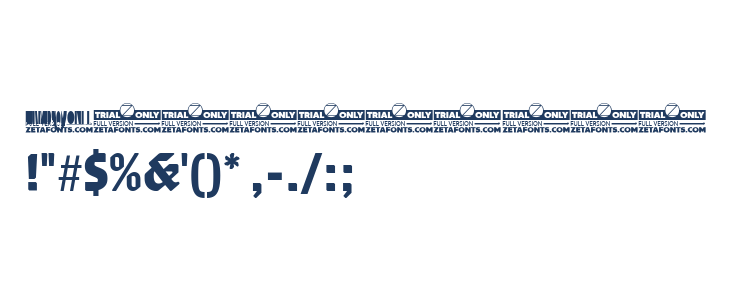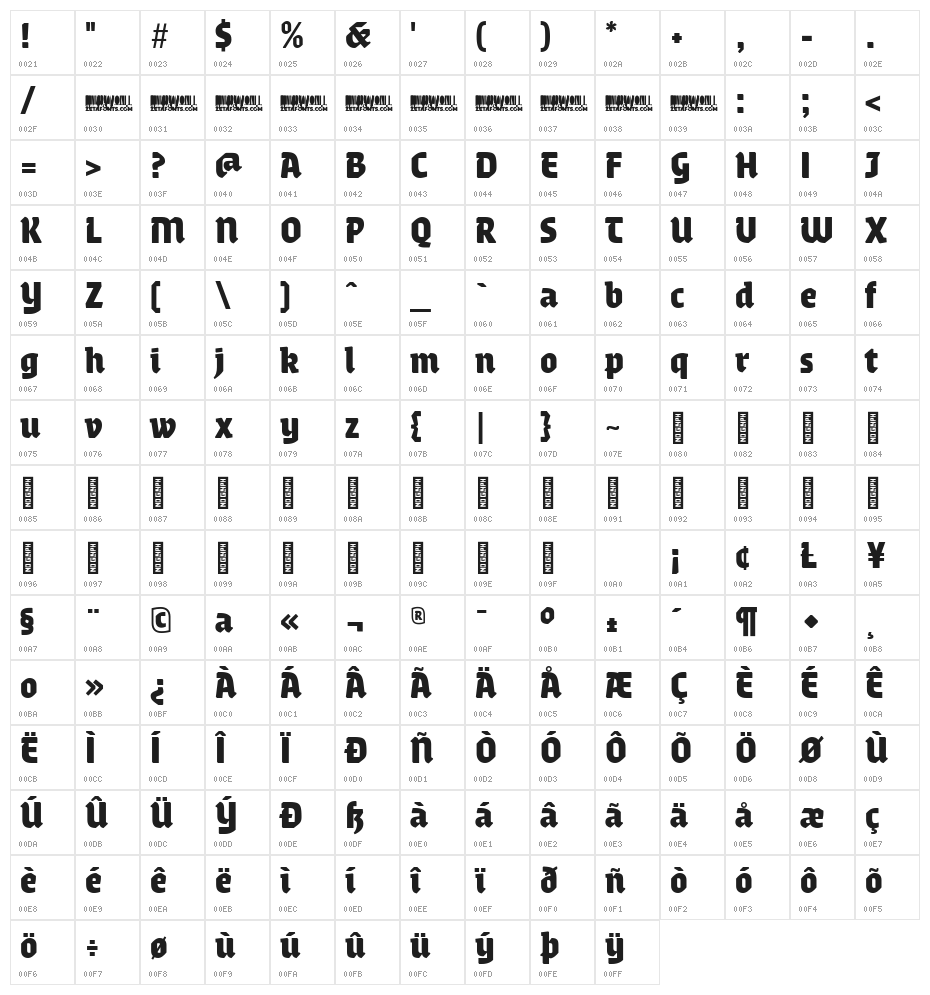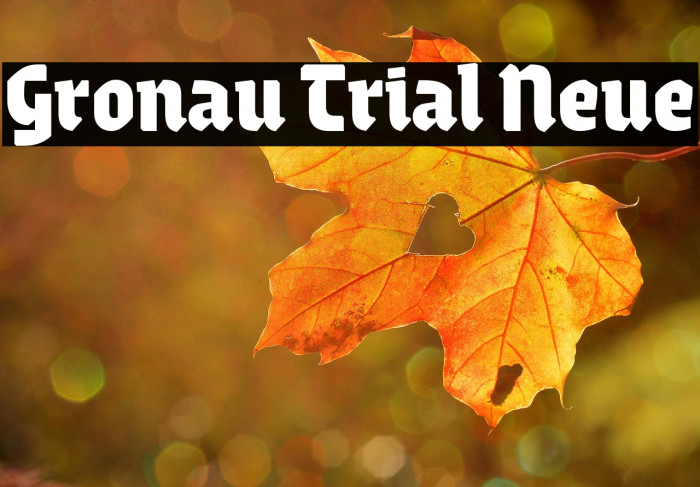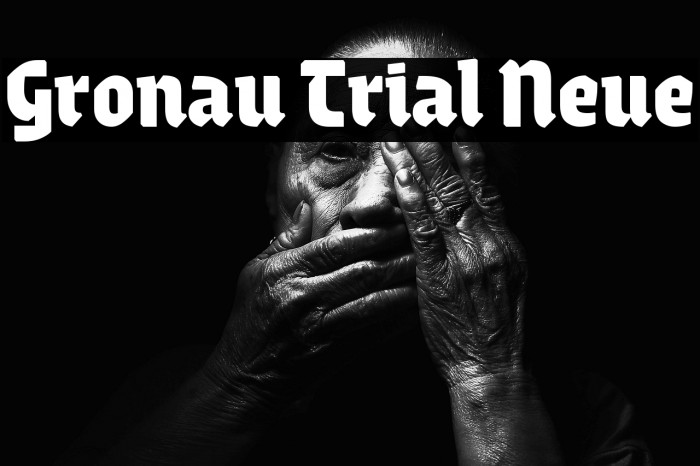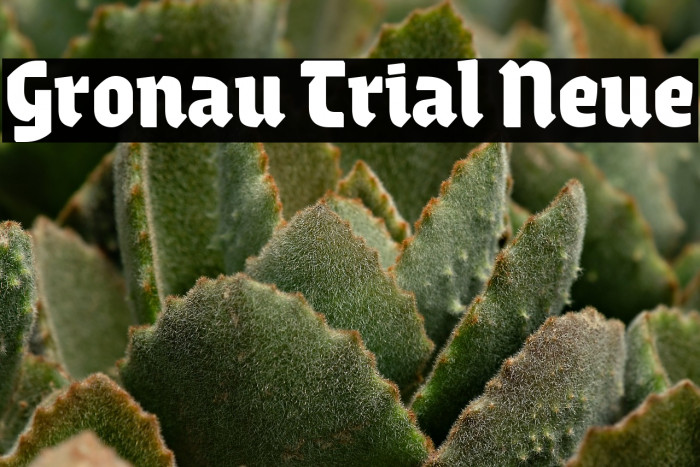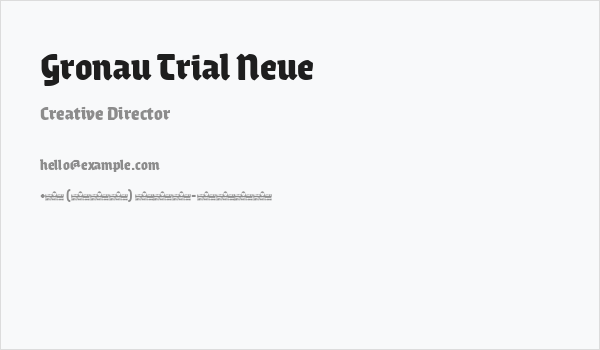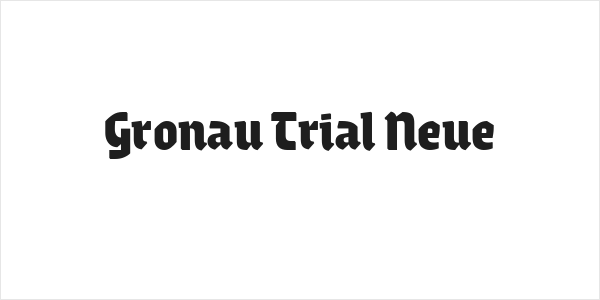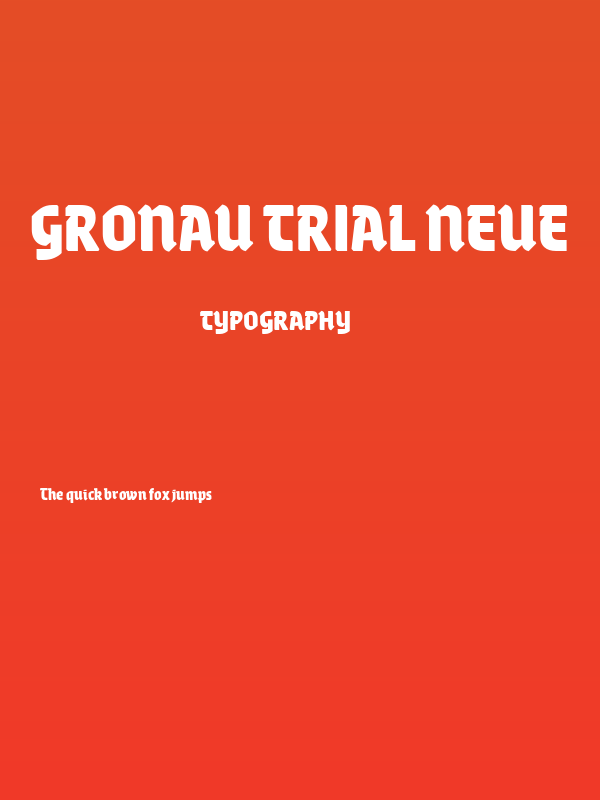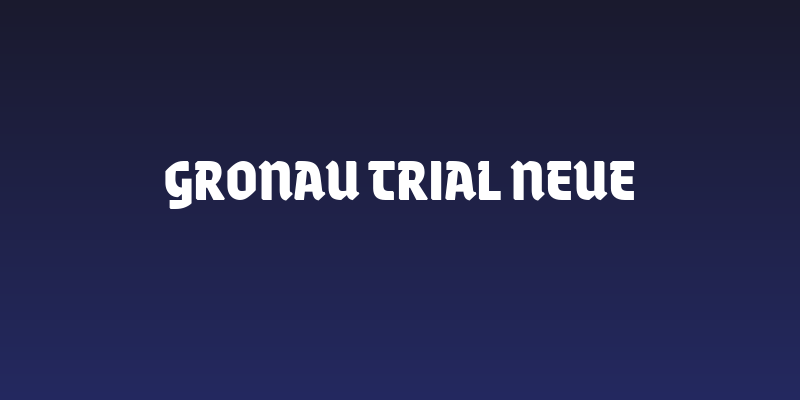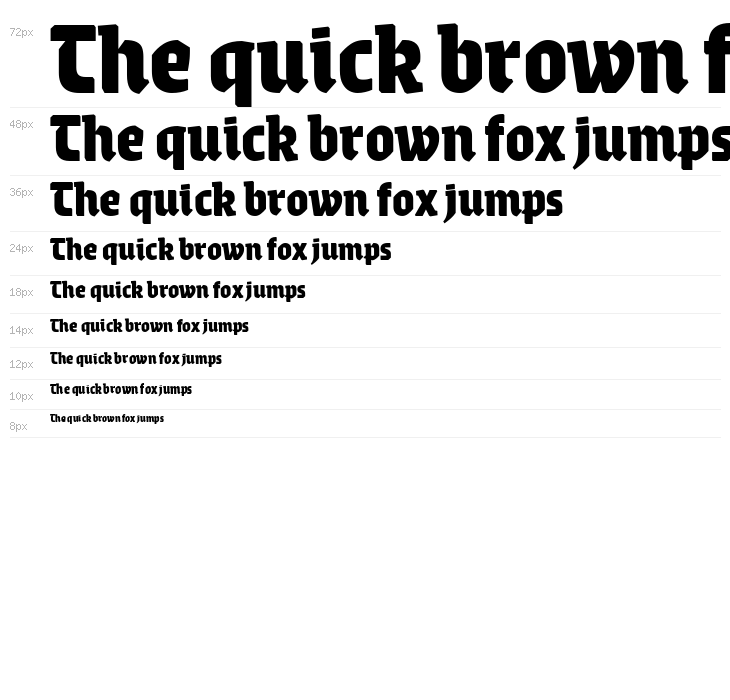
Gronau Trial Neue Font
Gronau Trial Neue Description
This font features a bold and striking design with a modern twist on traditional blackletter styles. The characters are robust and angular, with a strong presence that commands attention. The uppercase letters are particularly bold, while the lowercase letters maintain a consistent weight, offering a cohesive look across different text sizes. The numerals and special characters are designed to match the boldness of the alphabet, ensuring uniformity throughout. This font is ideal for creating impactful headlines and logos, where a strong visual statement is required.